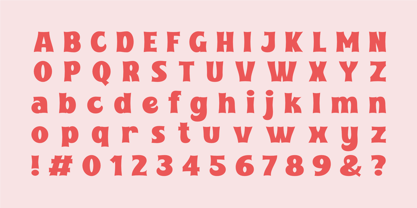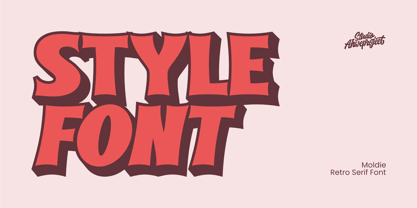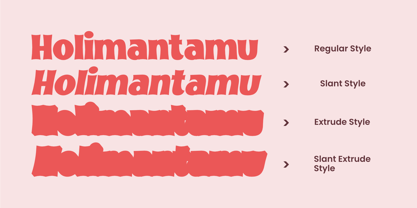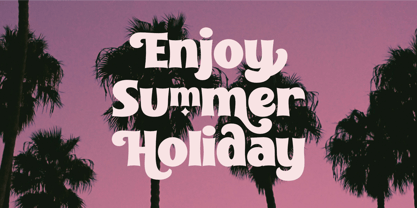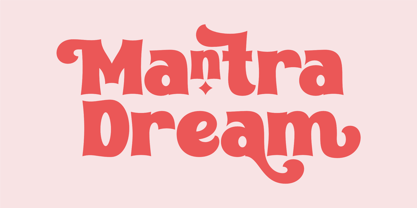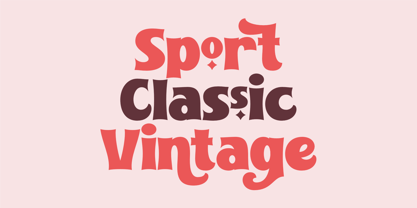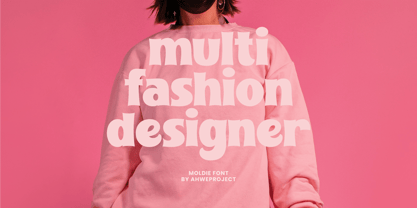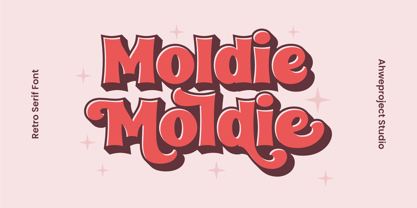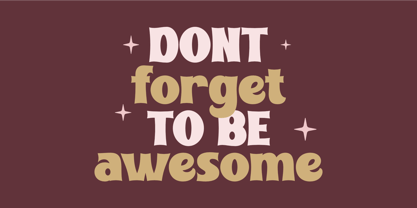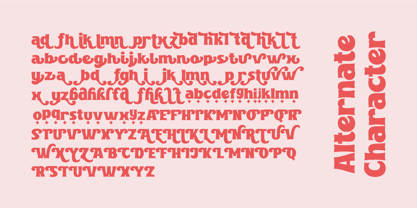
Moldie
by ahweproject
The Moldie Font Family was designed by Dida Ahluddin and published by ahweproject. Moldie contains 4 styles and family package options. More about this family
Moldie is a playful and bold retro serif font that brings a nostalgic yet fun vibe to any design. With its thick, rounded edges and dynamic curves, it stands out with a quirky personality perfect for eye-catching headlines, logos, or packaging. The layered effect adds depth, while the soft serifs maintain a friendly and approachable feel. Whether you’re aiming for a vintage look or simply want to infuse some whimsy into your project, Moldie is versatile enough to suit both retro-inspired and modern designs with a touch of flair.
Designers: Dida Ahluddin
Foundry: ahweproject
Moldie